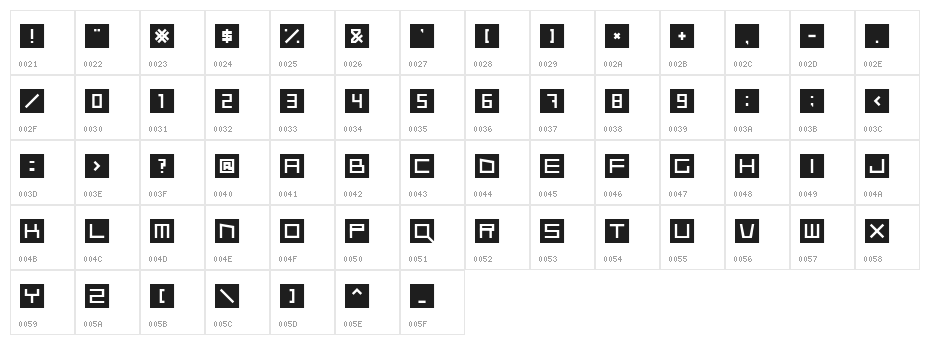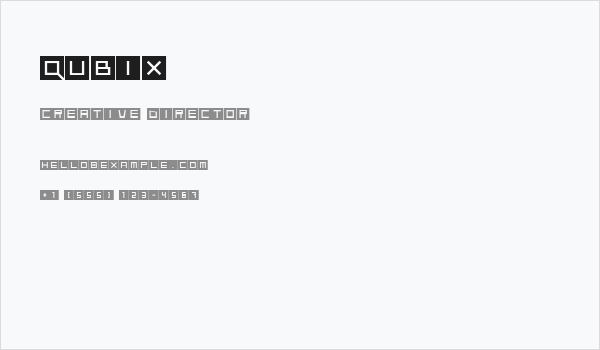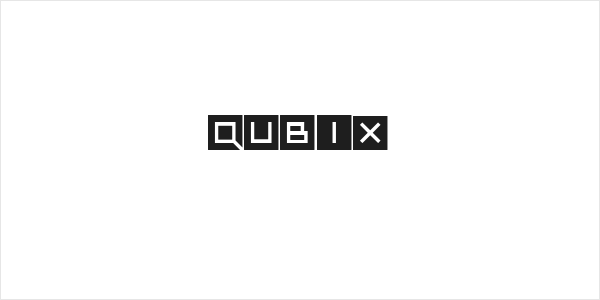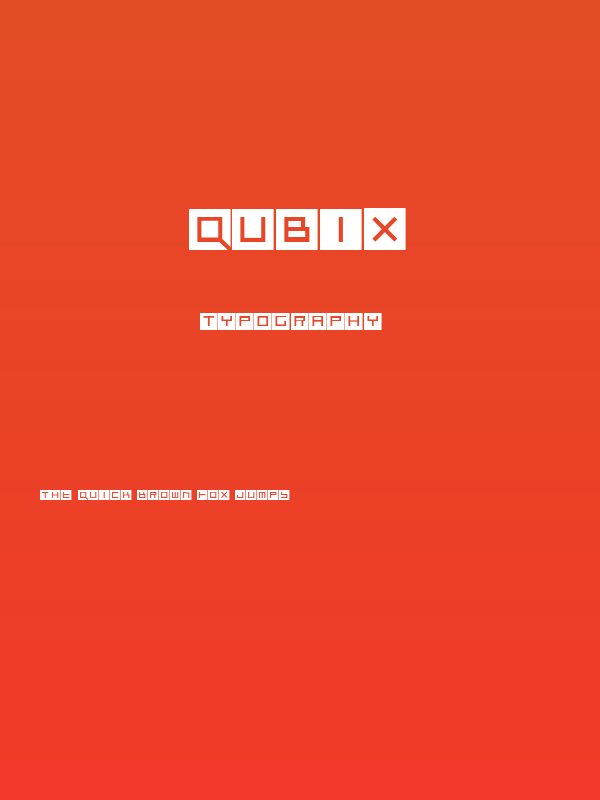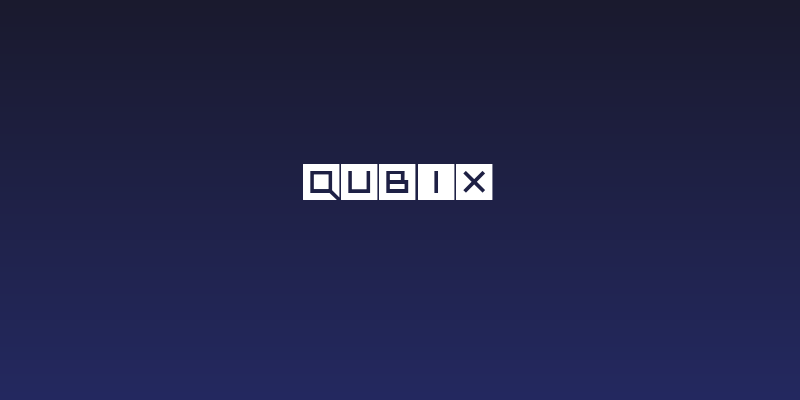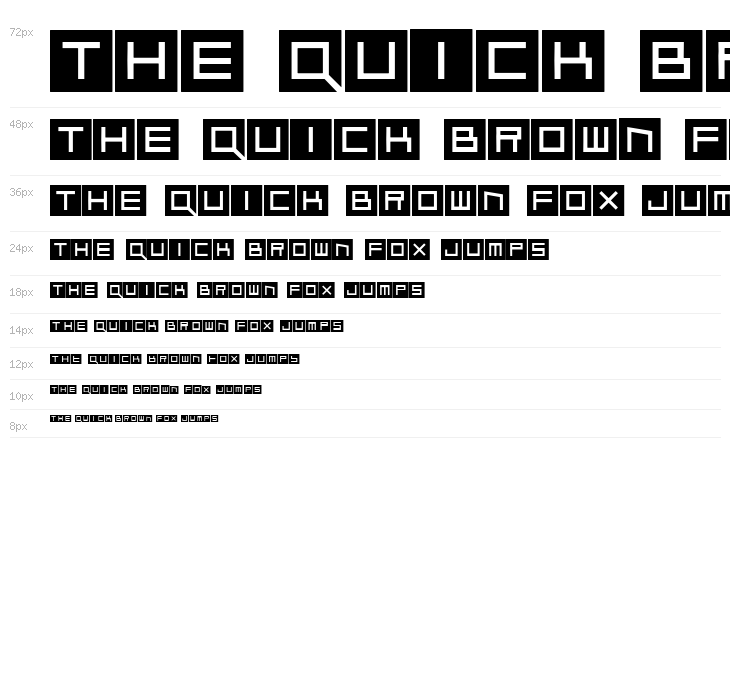
Qubix Font
Qubix Description
This font features a bold, geometric design with each character enclosed in a square, giving it a distinct, futuristic appearance. The letters are constructed with sharp angles and straight lines, creating a sense of precision and modernity. The uppercase and lowercase letters maintain a consistent style, with slight variations in size and form. Numbers and special characters follow the same geometric pattern, ensuring uniformity across the entire typeface. The high contrast between the thick strokes and the negative space within the squares enhances readability while maintaining a striking visual impact.
| Proposed Projects | Ideal for technology branding, video game titles, futuristic posters, and digital interfaces. |